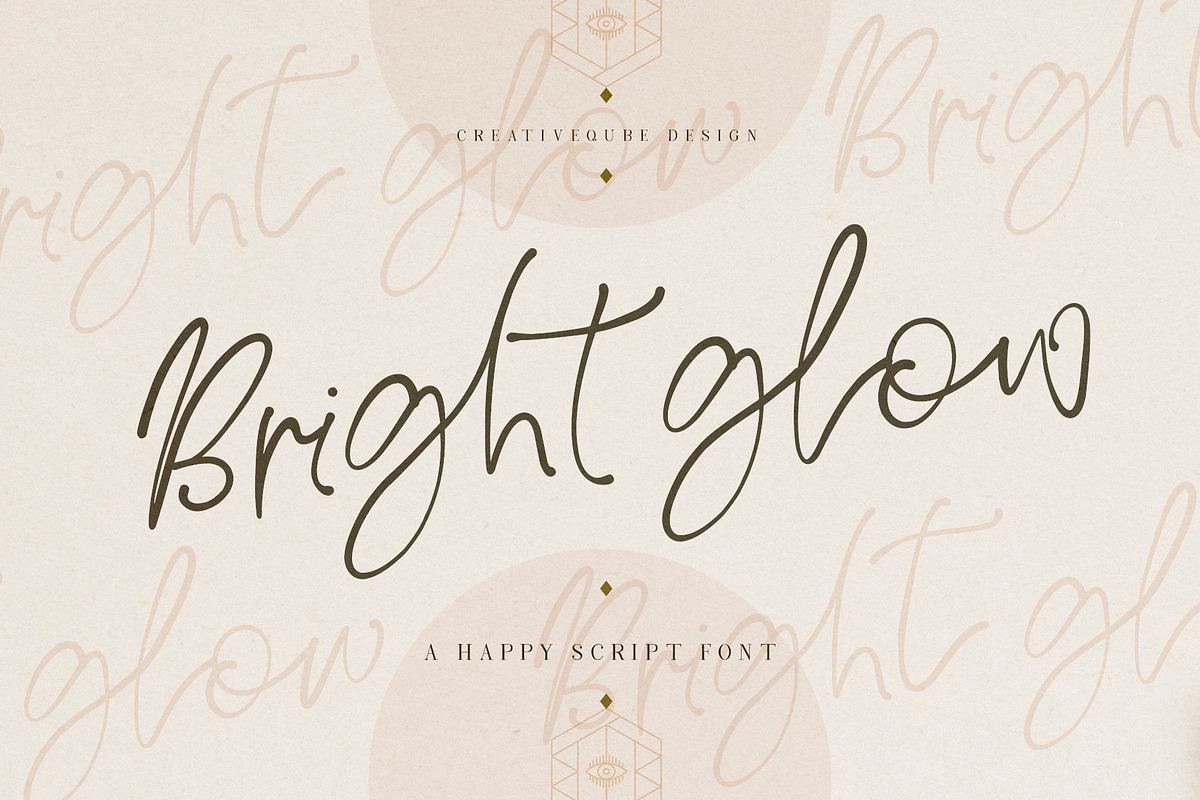
Bright Glow Script Font Free Download
Bright Glow Script Font Free Download is a vibrant and stylish handwritten script typeface that brings energy and elegance to your designs. With its smooth, flowing curves and modern feel, this font is perfect for creating eye-catching logos, invitations, greeting cards, social media graphics, and more. It combines a playful yet refined look that makes it suitable for both casual and formal design projects.
Using the Bright Glow Script Font Free Download adds a glowing, luminous quality to your typography. Whether you’re designing a bright, cheerful brand identity or crafting an elegant wedding invitation, this font will make your designs shine with style and flair.